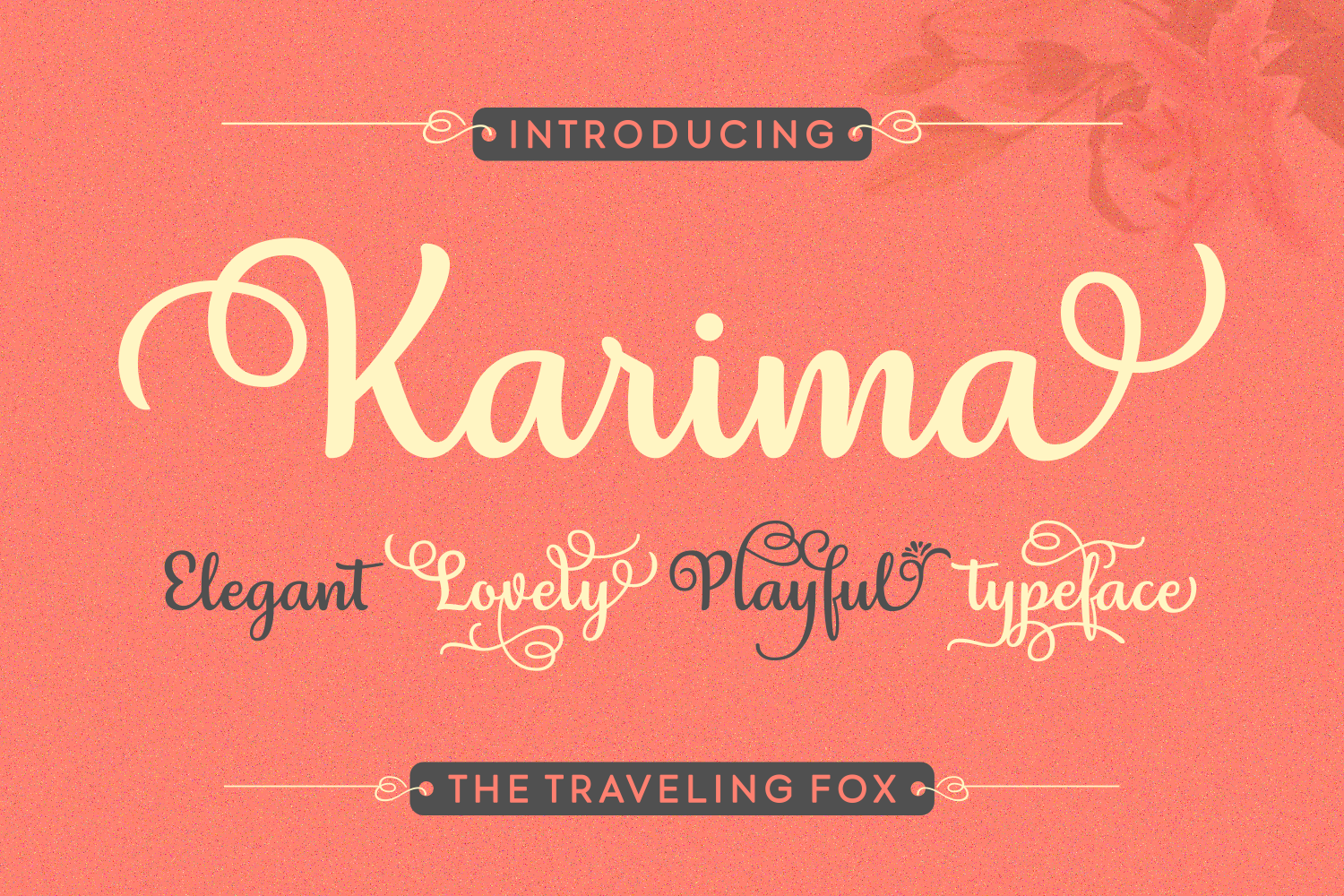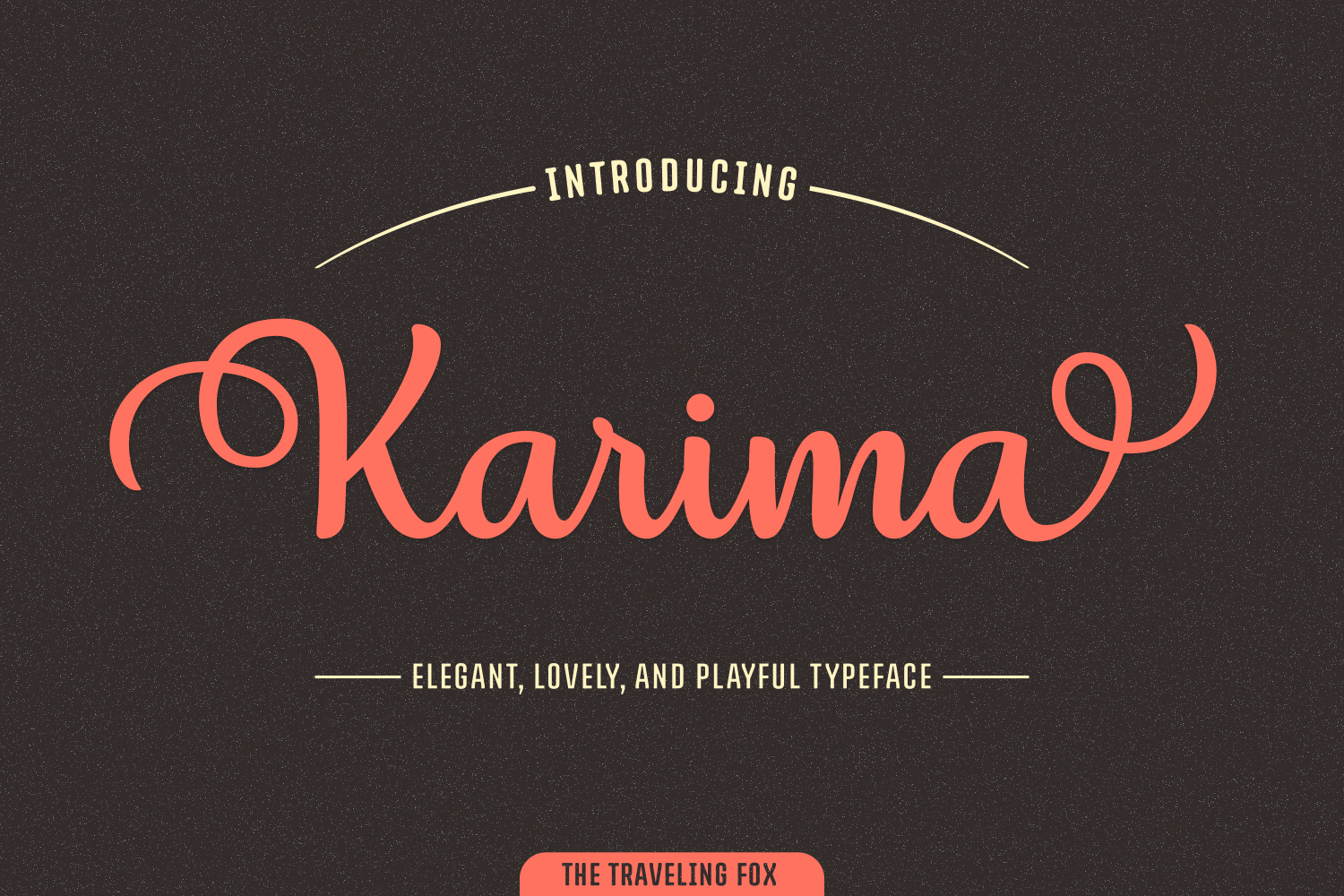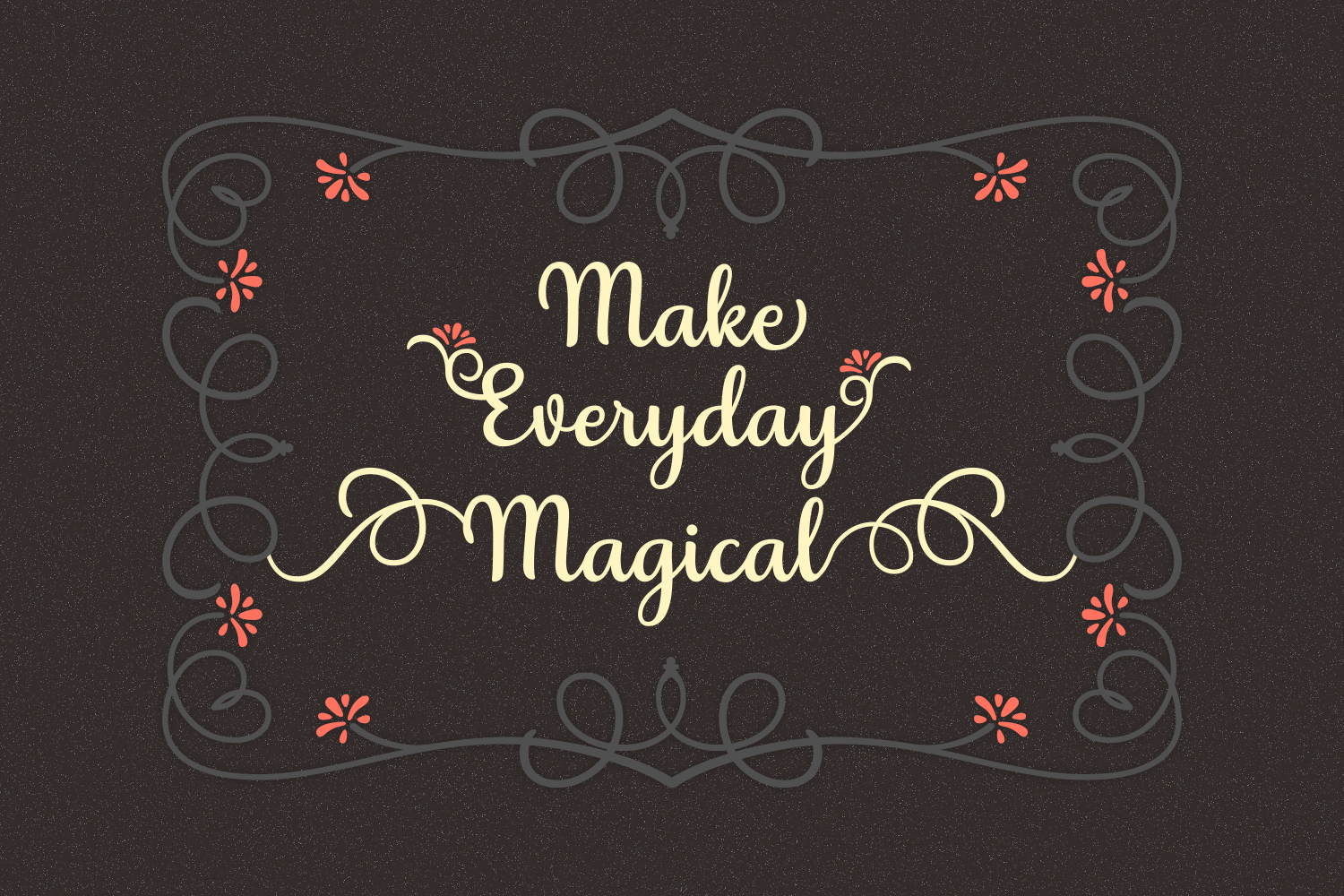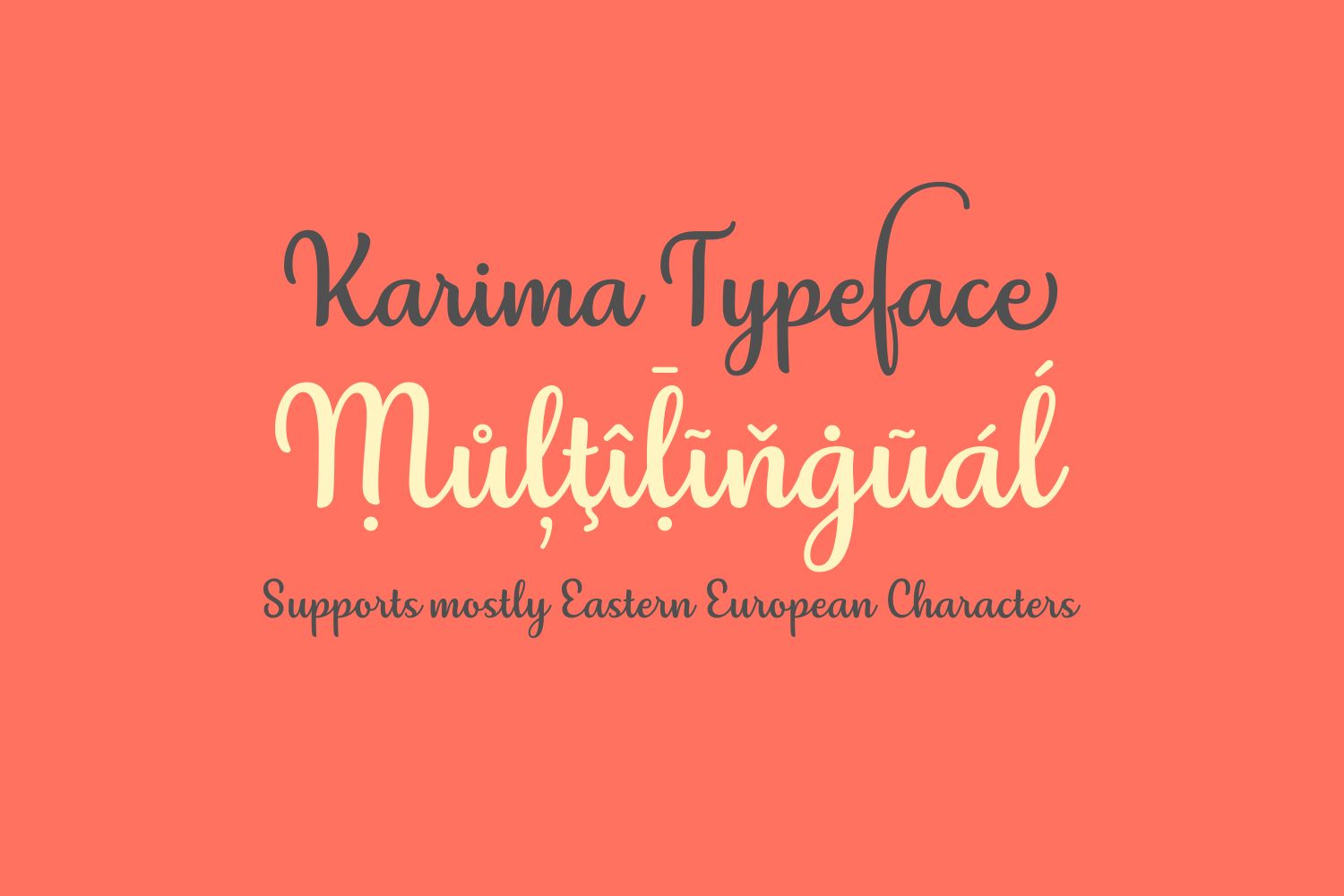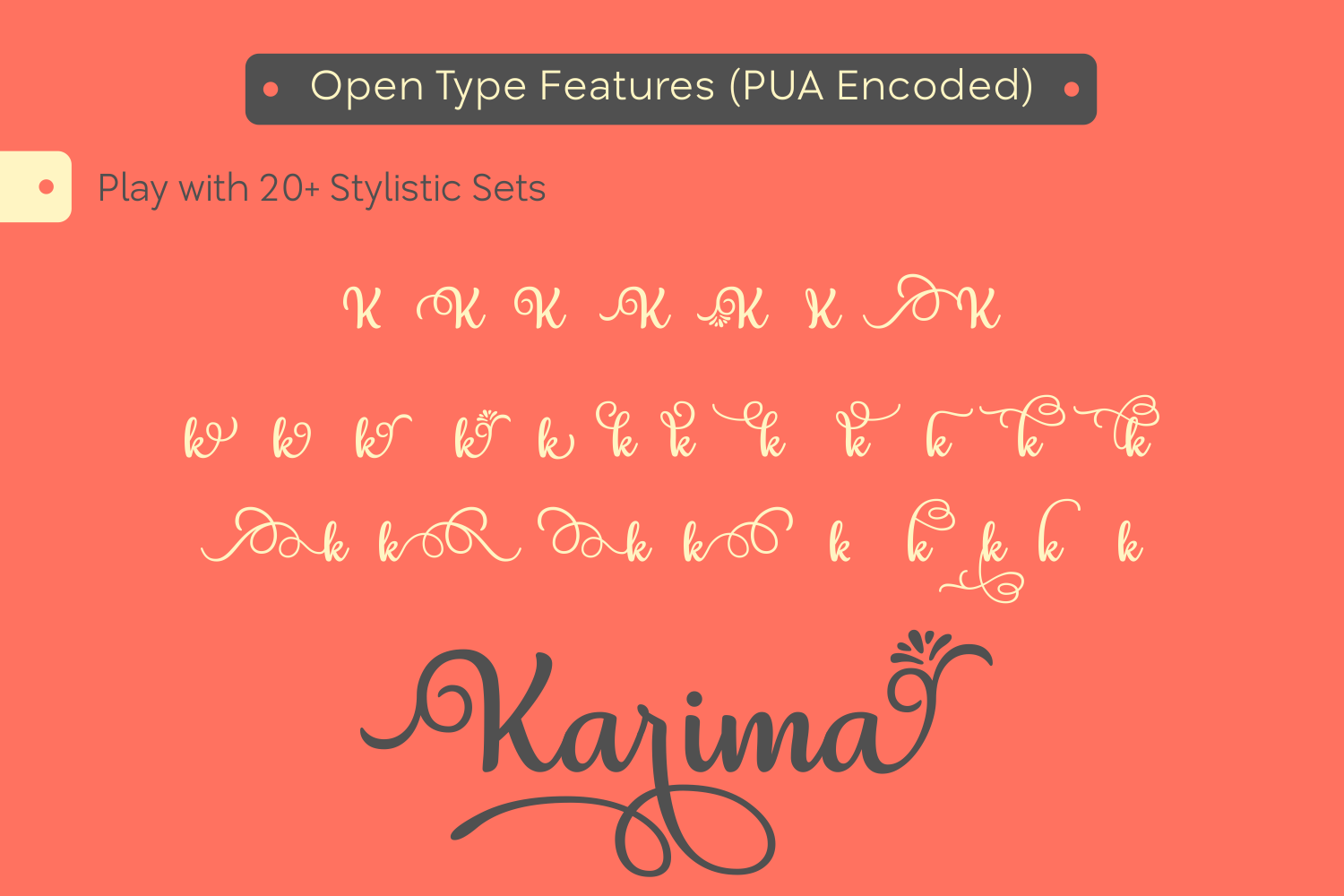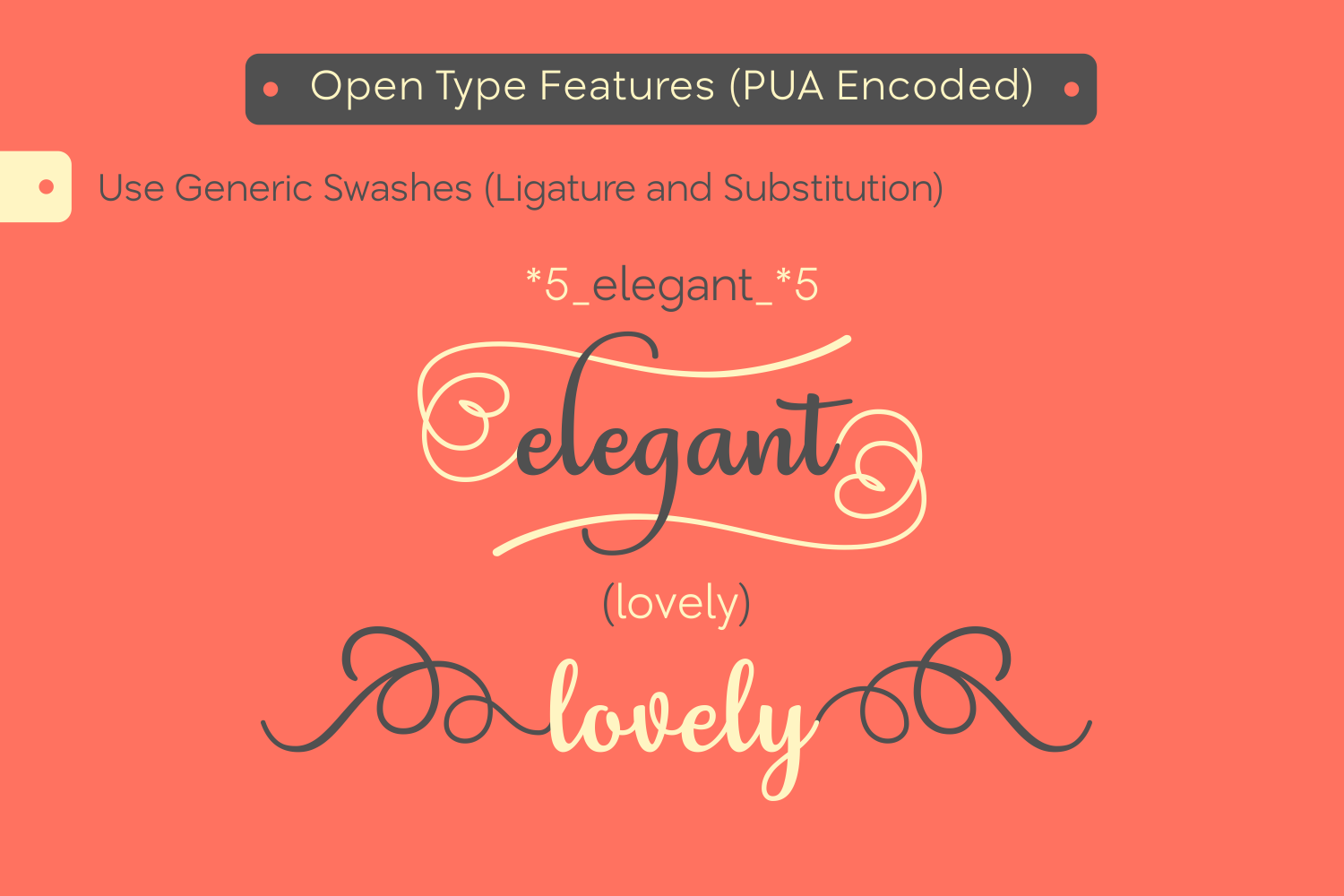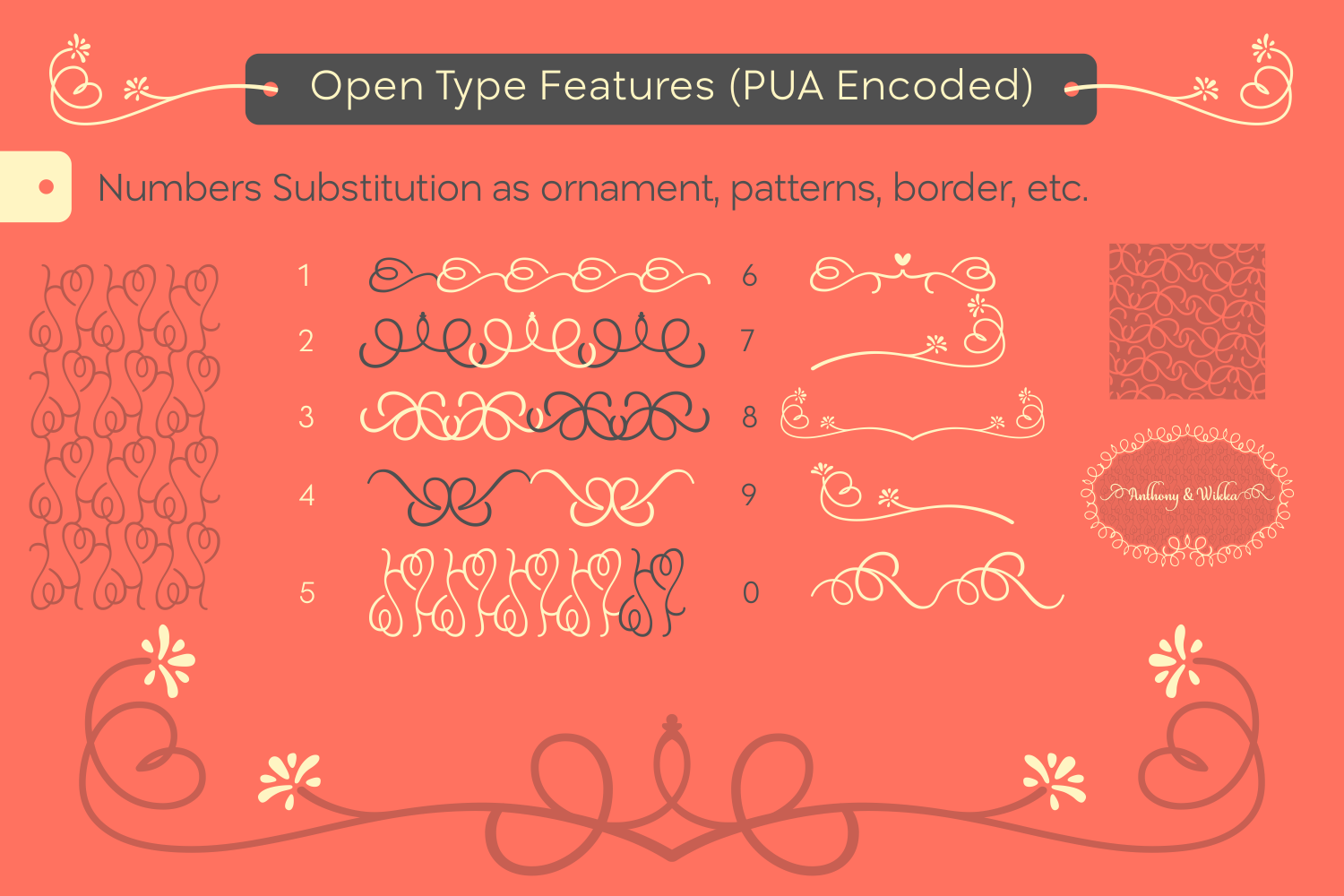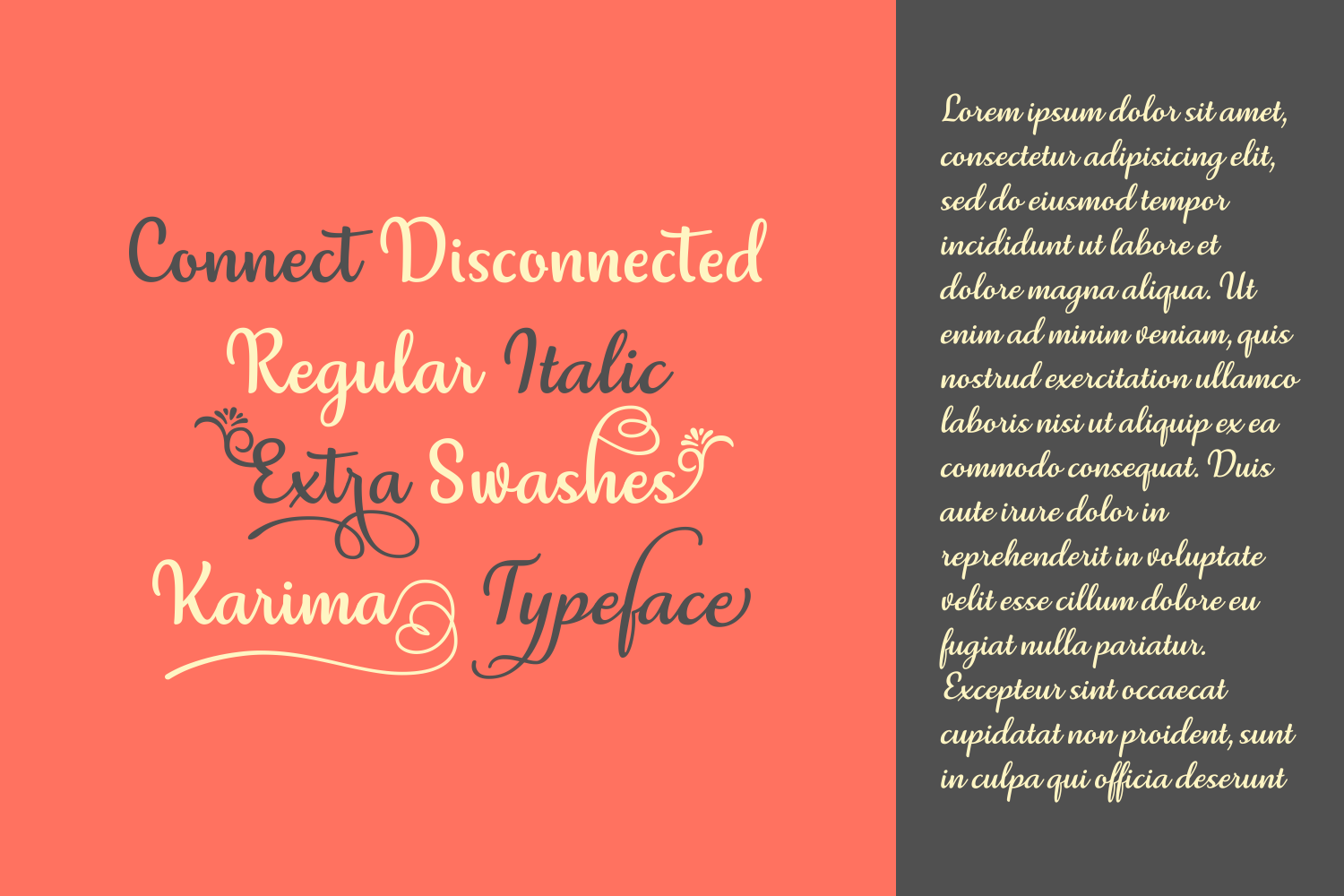
Karima is a stunning script font featuring over 1,000 unique glyphs.
It’s multilingual, highly legible, and includes more than 20 stylistic alternates, allowing you to create endless combinations and variations. From elegant invitations to eye-catching logos and standout social media posts, Karima offers the versatility to elevate any design. With this font in your toolbox, you’ll be able to turn each project into something truly unique within a matter of seconds, all while maintaining a polished, professional look.